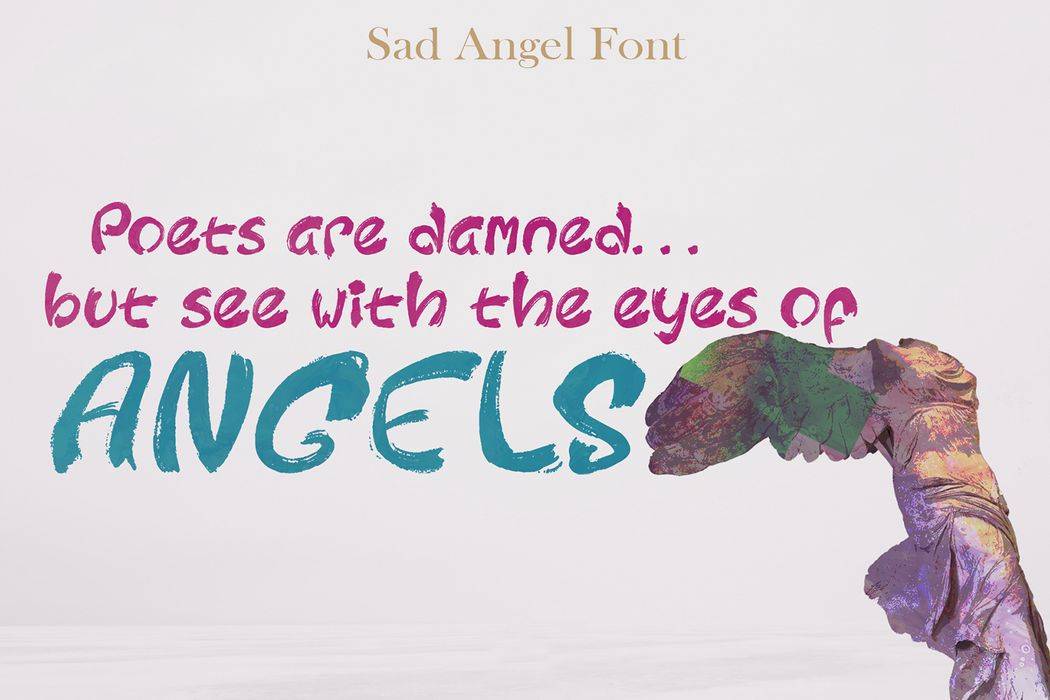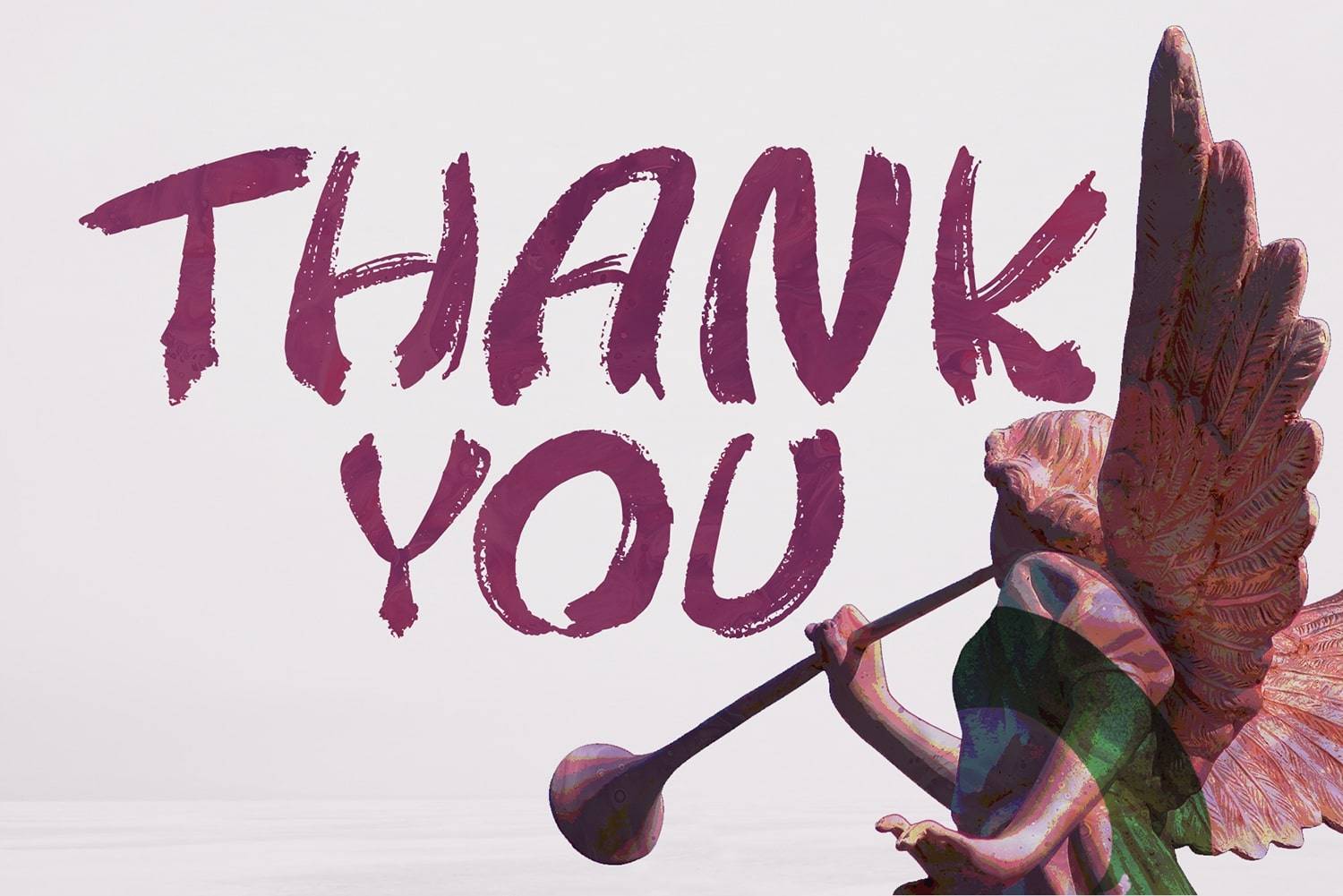
Sad Angel is a bold, hand-brushed script font with a rough, textured stroke that gives it an expressive and raw feel. Its casual, irregular letterforms with high contrast in stroke thickness evoke a sense of artistic spontaneity, making it perfect for creative projects, urban designs, and edgy branding. This font works best in headlines, posters, and logos where a strong, emotional impact is desired.
Sad Angel Font
About Sad Angel Font
| Font family | Sad Angel Font |
| Release date | 2022-03-01 |
| Designer | Muhammad Helmi |
| Trademark | Seneka Grafika |